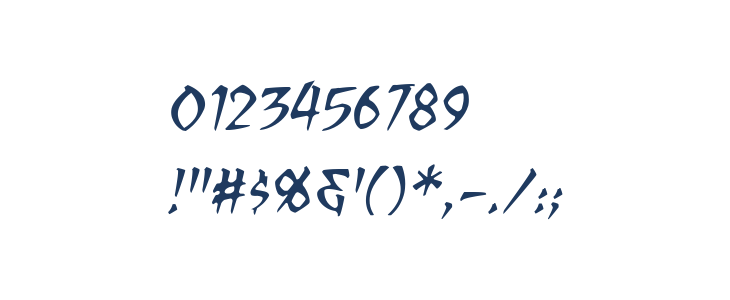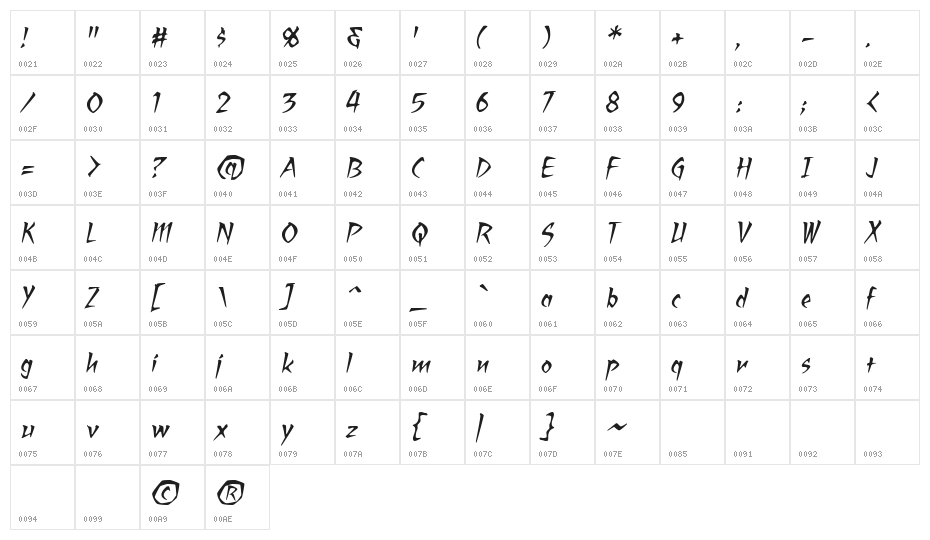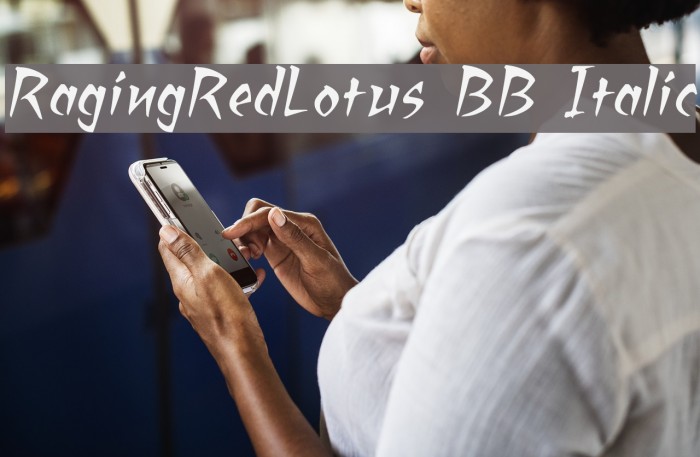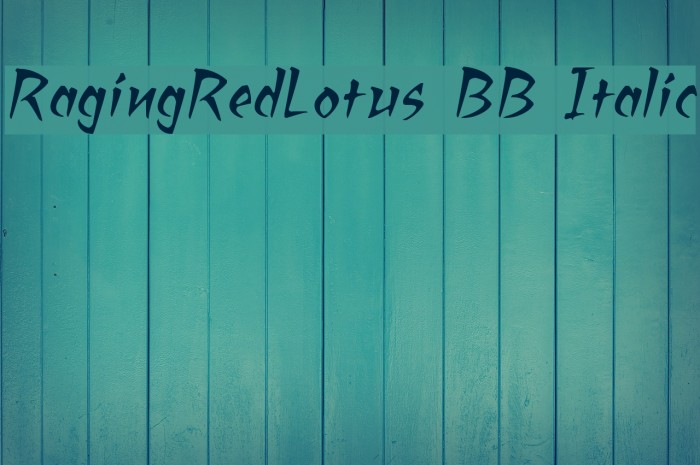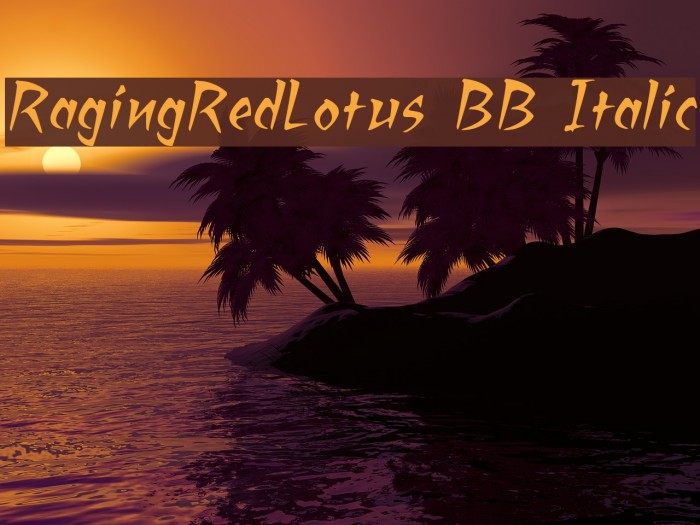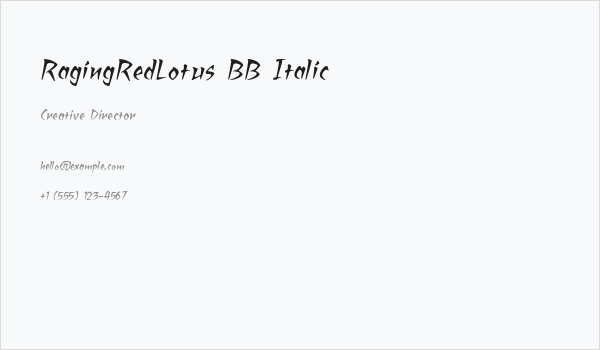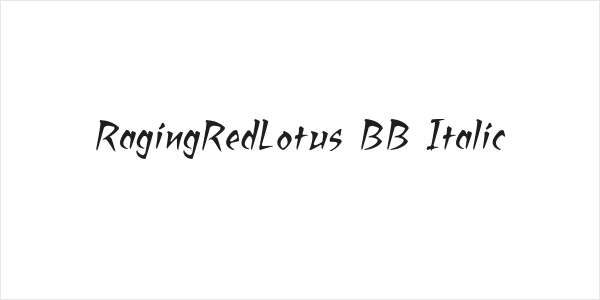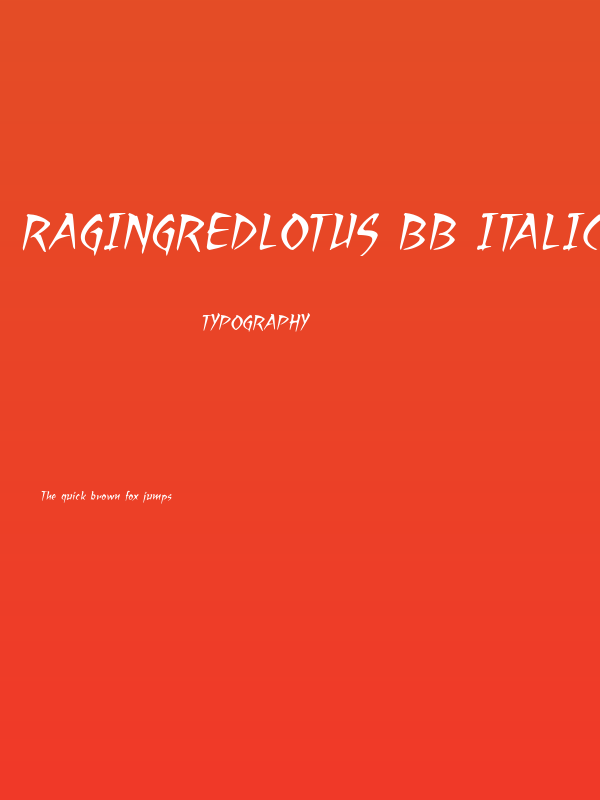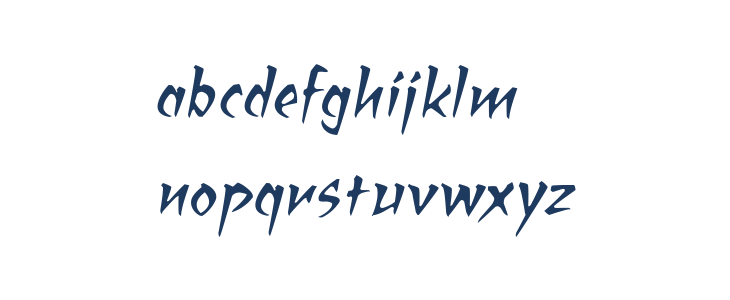
RagingRedLotus BB Italic Font
RagingRedLotus BB Italic Description
This font features a dynamic and energetic style, characterized by sharp, angular strokes and a slightly italicized slant. The letters have a hand-drawn appearance, giving them a unique and expressive quality. The uppercase and lowercase characters maintain a consistent style, with exaggerated curves and pointed edges that create a sense of movement and intensity. The numerals and special characters follow the same design principles, ensuring a cohesive look across all glyphs. This font's bold and artistic flair makes it stand out, perfect for projects that require a touch of creativity and individuality.
Proposed ProjectsIdeal for posters, album covers, video game graphics, and any project needing a bold, artistic touch.